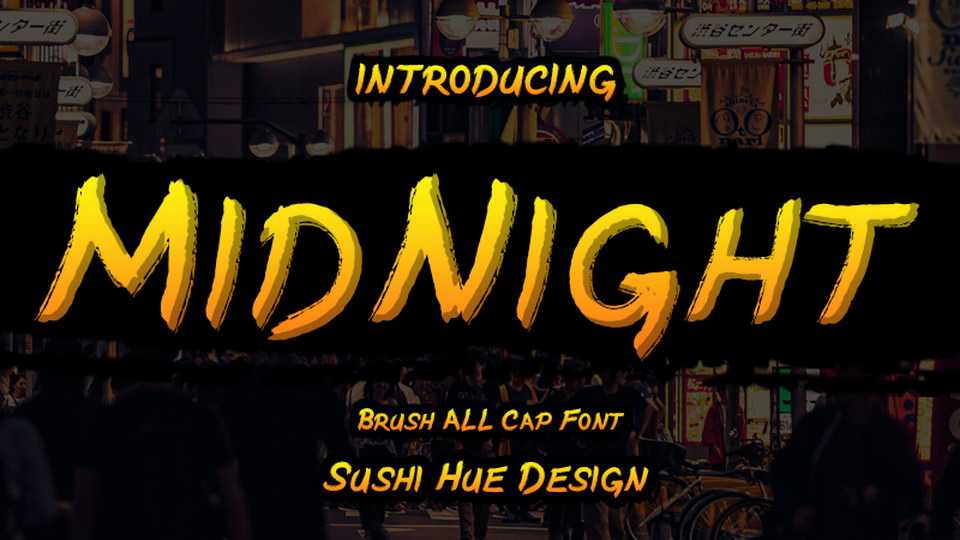
Download Midnight font, a cool hand painted all caps brush script. Midnight font fits perfect for posters, movie covers, comics, headlines, t-shirts, social media and other creative projects.
Designer: Sushi Hue Design